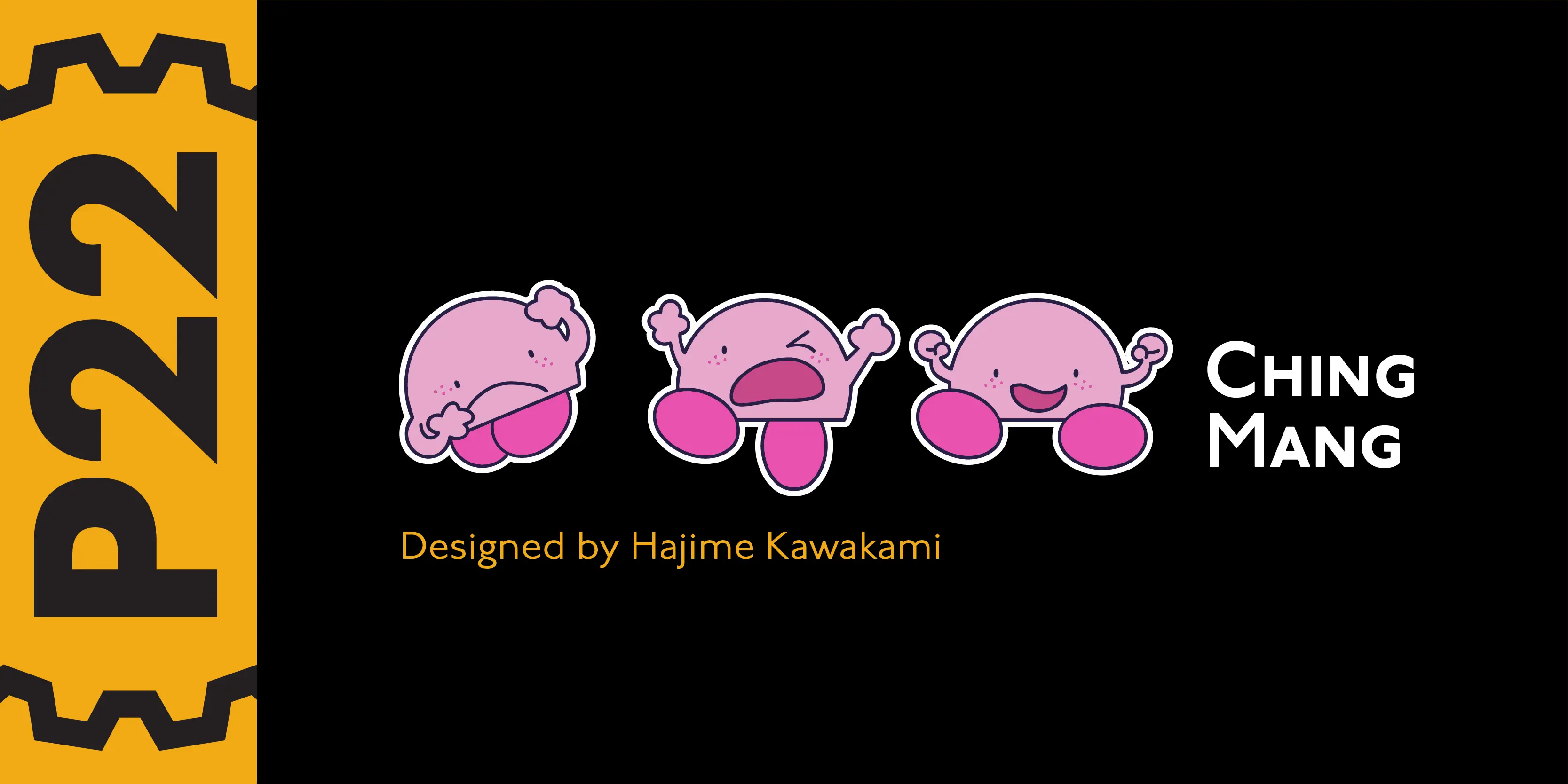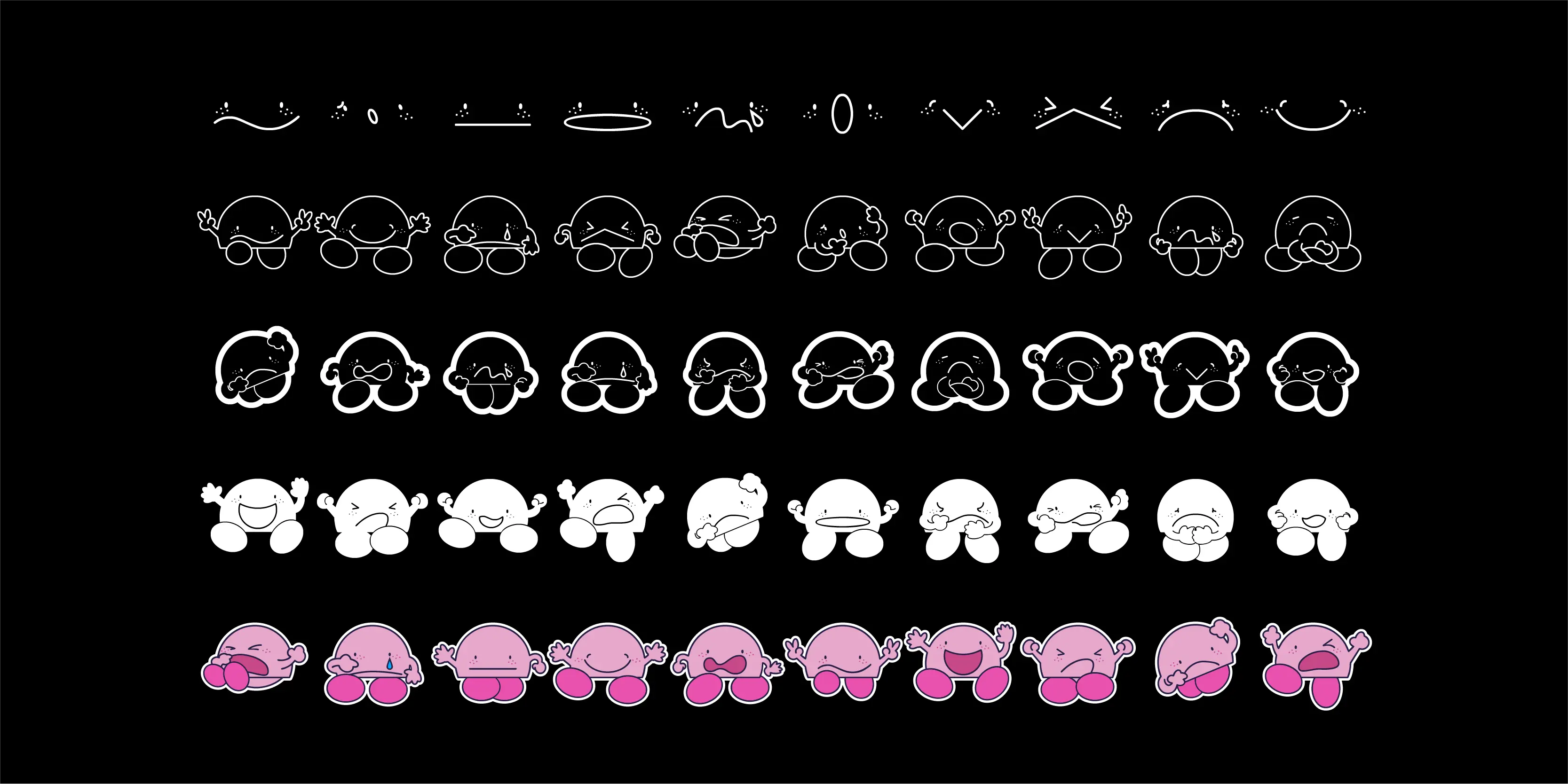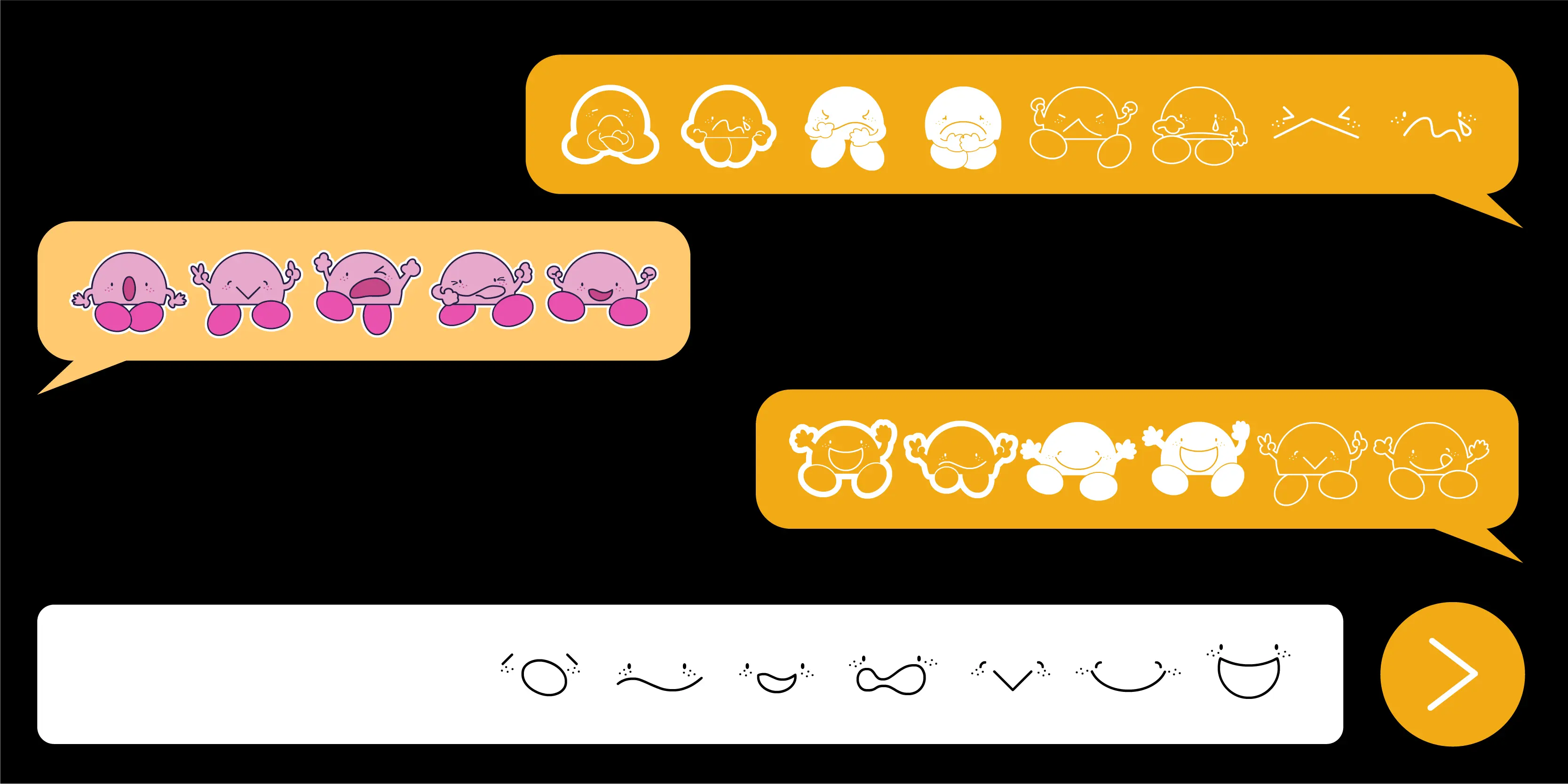
Ching Mang Font Family
Ching Mang
Ching Mang is a cartoon character created by Hajime Kawakami for a magazine in Japan in the 1980s. This picture font features various expressions of this fun creature. It features solid and outline variations for multi-color overlay effects in layout.